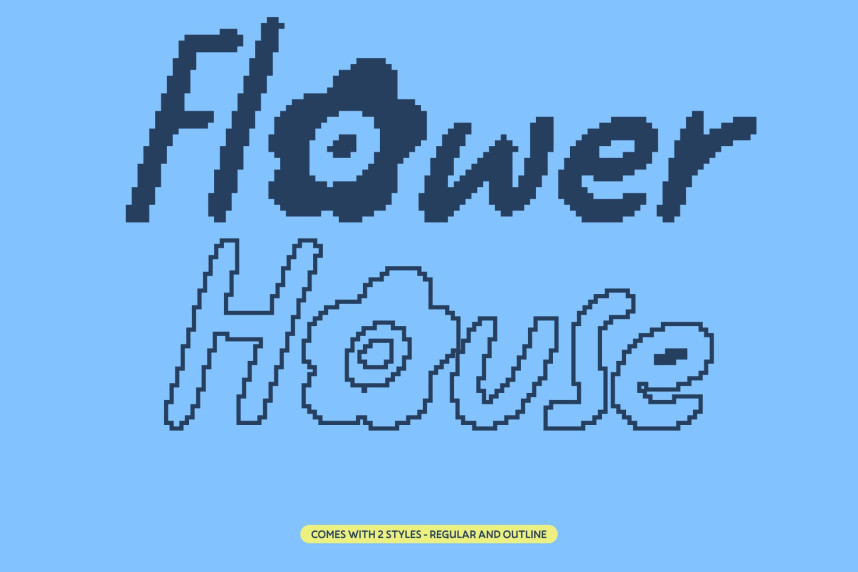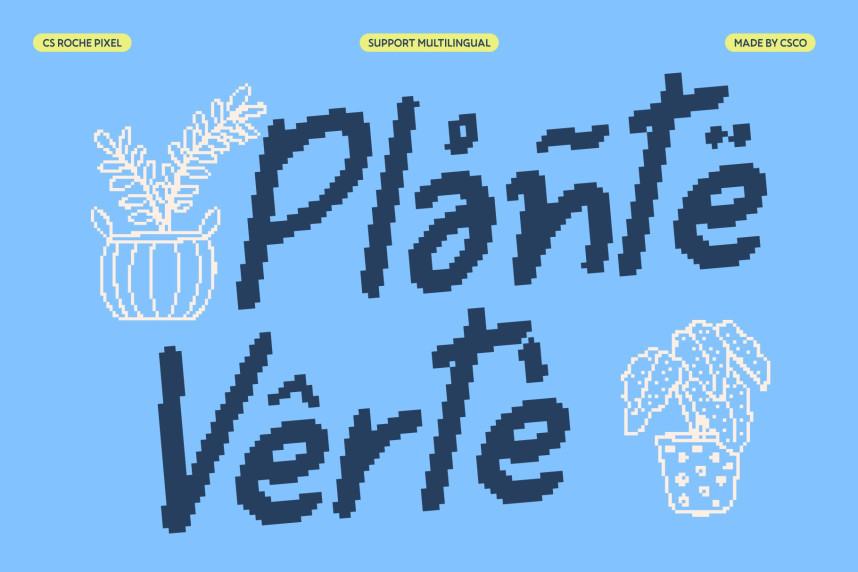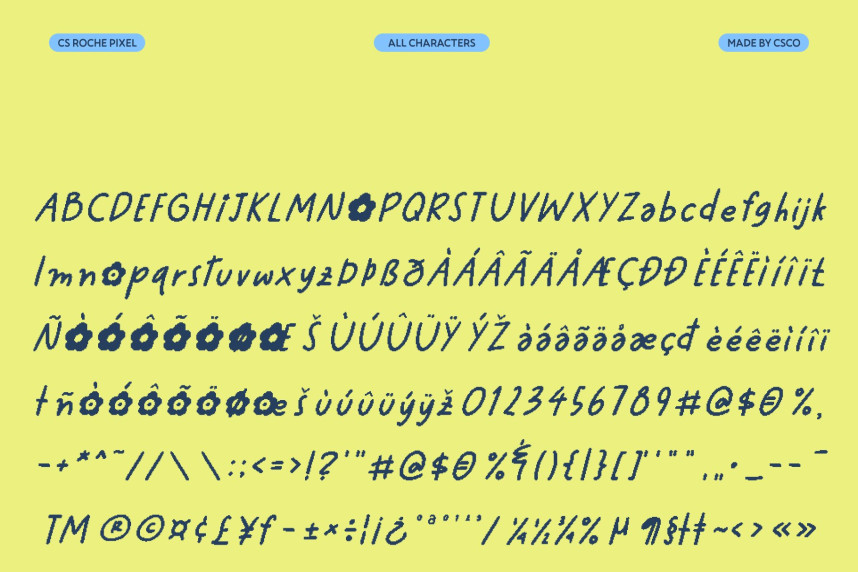
CS Roche Pixel Font
CS Roche Pixel Font – Playful Handwritten Font with Pixel Freshness Organic Handwriting Meets Pixel Precision. This reimagines its lively, flower-inspired handwritten charm with crisp, pixel-based edges. Each letter maintains the fun, expressive flow of the original design while adopting a geometric, retro-digital look that pops on screens, posters, and gaming interfaces. The combination of organic movement and pixel clarity makes it both charming and visually striking.